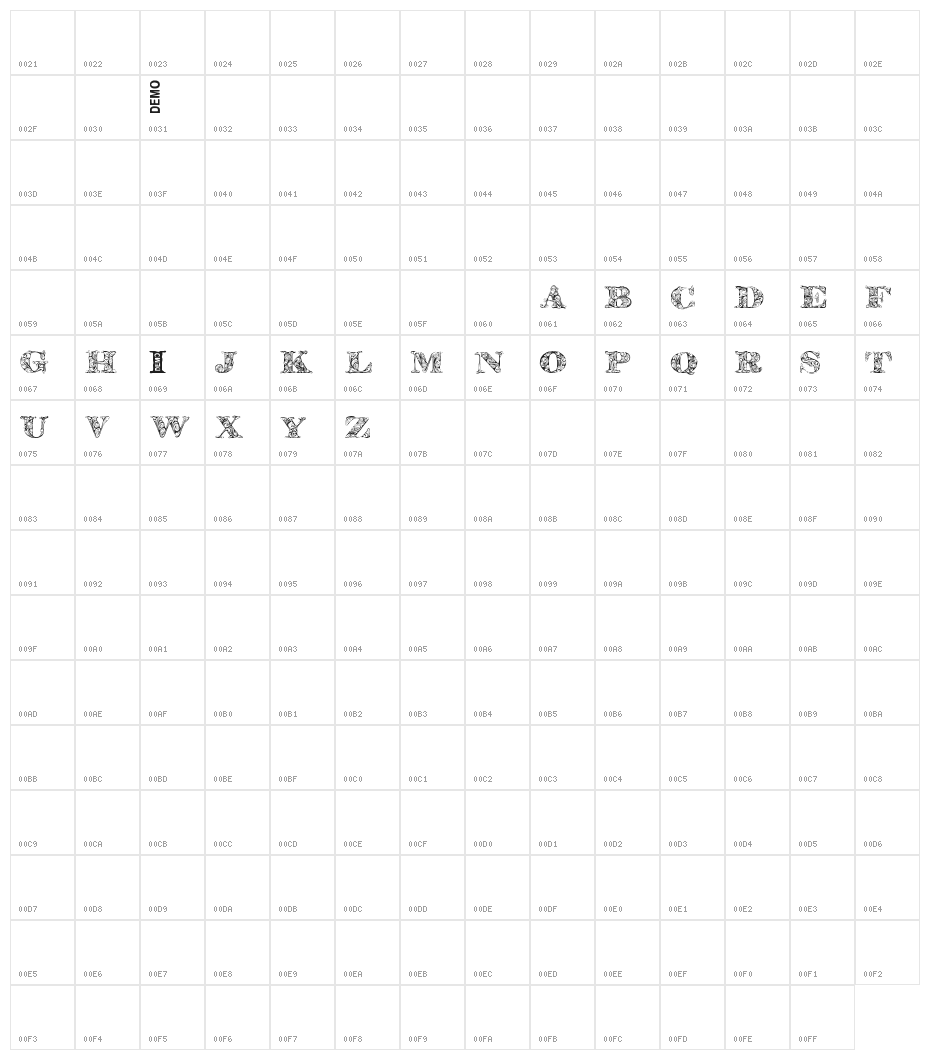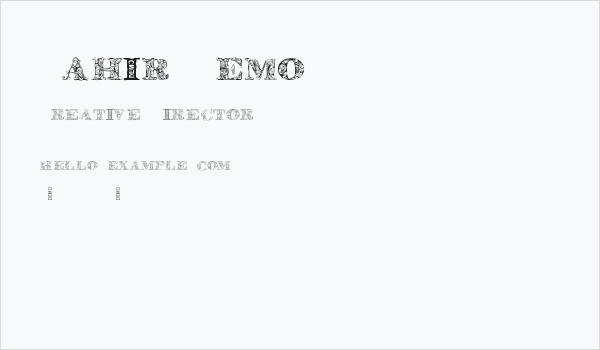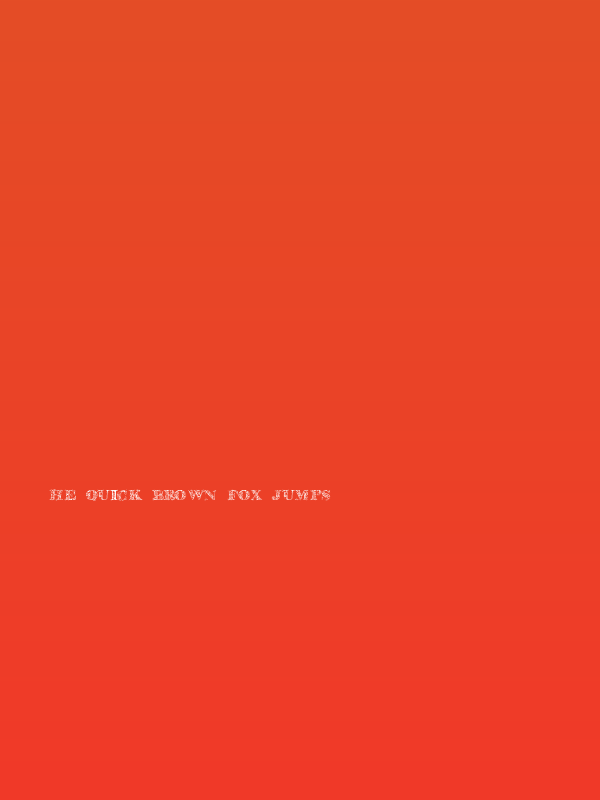
Kahir Demo Font
This font features an intricate and decorative design, with each letter adorned with elaborate floral patterns. The uppercase letters are bold and eye-catching, making them ideal for standout text. The design is reminiscent of vintage or Victorian styles, with a high level of detail that gives each character a unique and artistic flair. The font's ornate nature makes it suitable for projects that require a touch of elegance and sophistication. It is particularly well-suited for decorative purposes, such as invitations, posters, or branding that aims to convey a sense of luxury and refinement.
| Use Case | Headlines, Logos, Decorative text |
| Proposed Projects | Ideal for wedding invitations, luxury branding, vintage-themed posters, and decorative signage. |